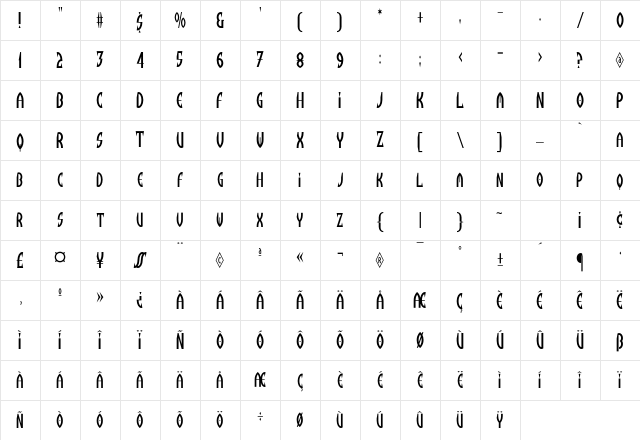
Devit Regular
Design Context for Devit
Devit is a composed and adaptable typeface that performs quietly and consistently across a wide range of design contexts.